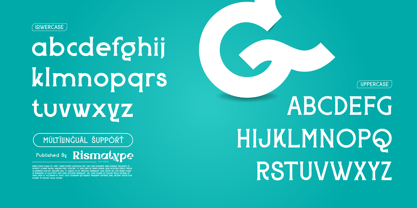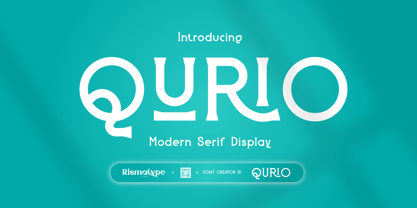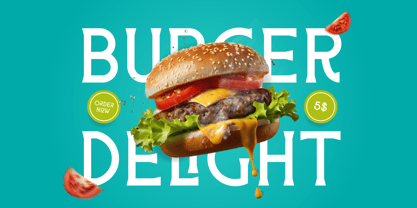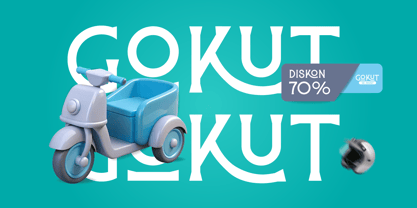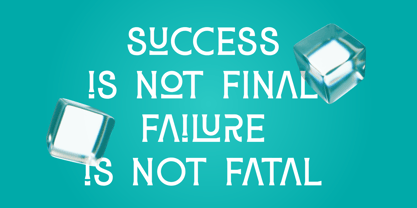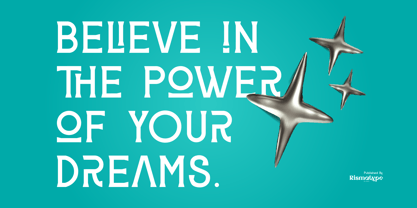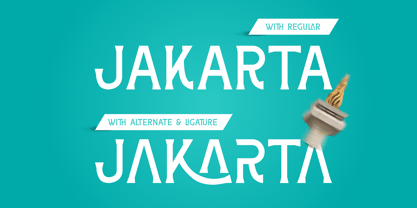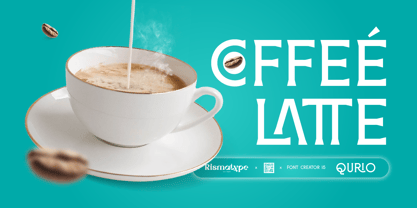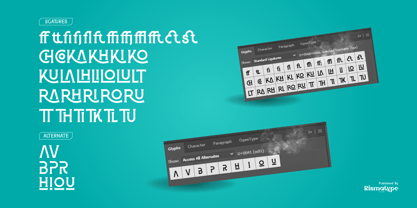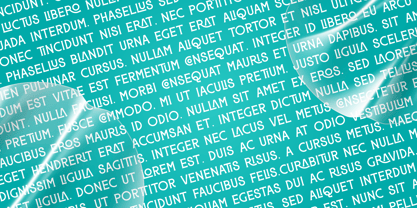
Qurio
by Risma Type
The Qurio Font Family was designed by Risma Mulyasari and published by Risma Type. Qurio contains 2 styles and family package options. More about this family
✨ Qurio ✨
Sophisticated and Modern Serif Display Font
Qurio is a serif display font designed to embody elegance and contemporary appeal. With its refined lines and striking curves, this font is perfect for elevating design projects that demand sophistication and style, such as:
Branding & Logos: Make a bold, unforgettable impression.
Editorial & Magazines: Add sophistication and professionalism.
Invitations & Cards: Elevate special moments with luxury.
💎 Create a lasting impression with every character of Qurio.
Infuse your designs with elegance and modern flair that stands out!